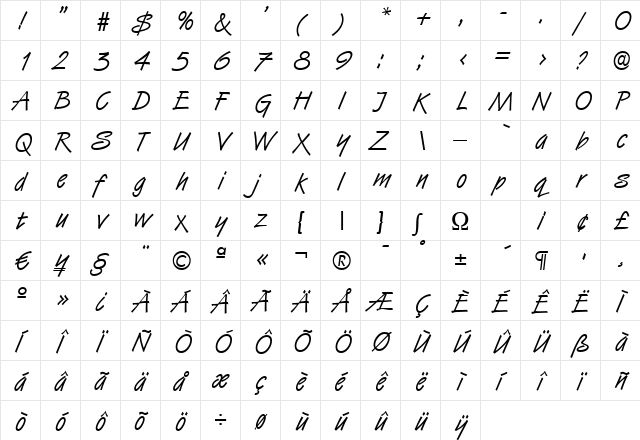
Script-H850 Regular
Design Context for Script-H850 Typeface
Script-H850 brings a calligraphic fluidity to the page — its connecting strokes and expressive curves give it an unmistakably human quality.
Font Pairing: Combine Script-H850 with a simple geometric sans for maximum contrast — the tension between flowing curves and clean structure is a classic typographic pairing.
Pro Tip: Use Script-H850 for short runs of text — names, titles, or taglines. Extended body copy in script faces tires the eye quickly.